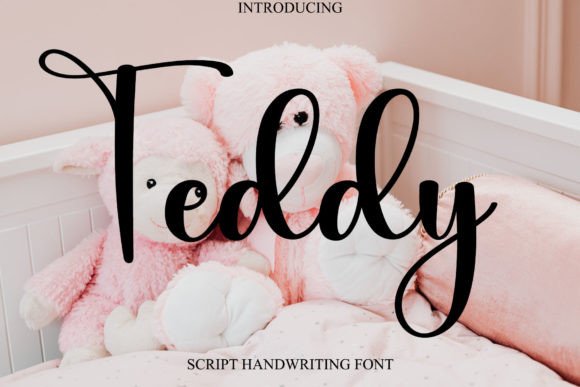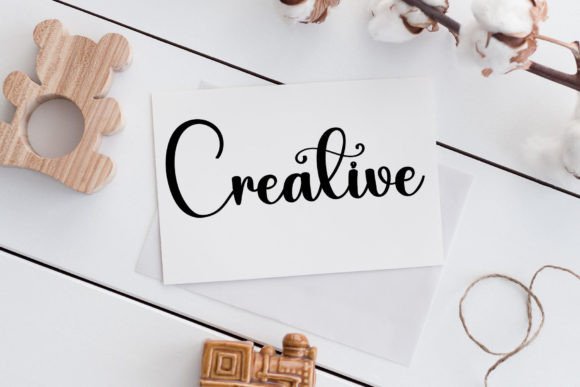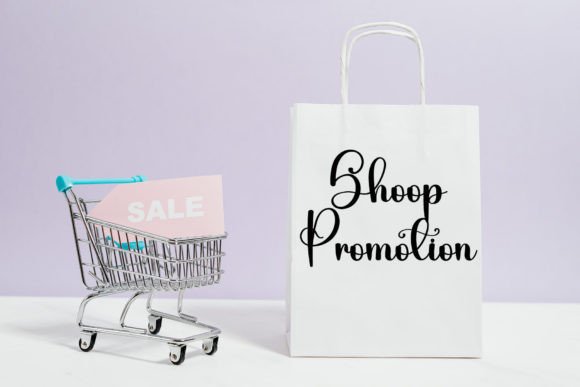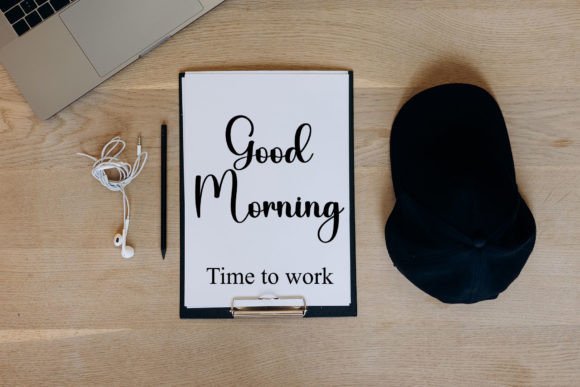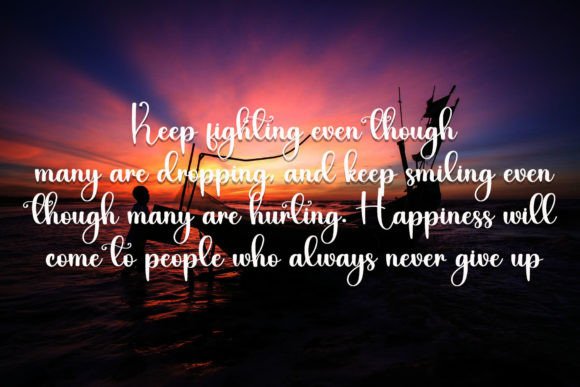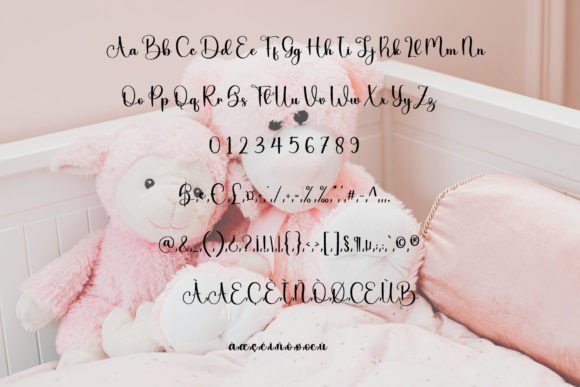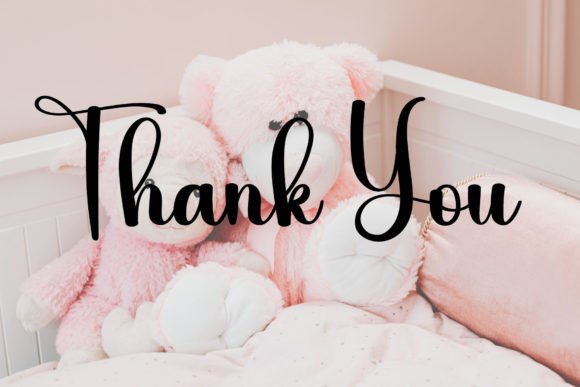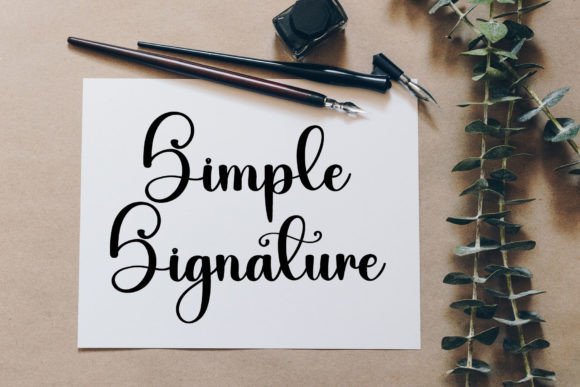
Teddy Font
About Teddy Font
“Teddy” is introduced as a sweet and beautiful handwritten font with characters that dance along the baseline, creating a distinctive and playful appearance. This font is designed to bring a touch of luxury and charm to any design project you choose to embark upon.
The sweetness and beauty of “Teddy” make it suitable for a variety of creative applications. Whether you’re working on invitations, branding materials, posters, or any project that could benefit from a delightful and playful aesthetic, this font adds a luxury spark.
The mention of characters dancing along the baseline implies a dynamic and whimsical quality, contributing to the unique and lively nature of the font. This characteristic makes “Teddy” an excellent choice for projects where you want to infuse a sense of movement and joy.
The promise of adding a luxury spark to design projects suggests that “Teddy” can elevate the overall aesthetic and bring a sense of sophistication to your creations.
In summary, “Teddy” is a sweet and beautiful handwritten font designed to add a luxury spark to your design projects. Embrace its distinctive characters and playful baseline, and let it infuse your designs with charm and a touch of elegance.